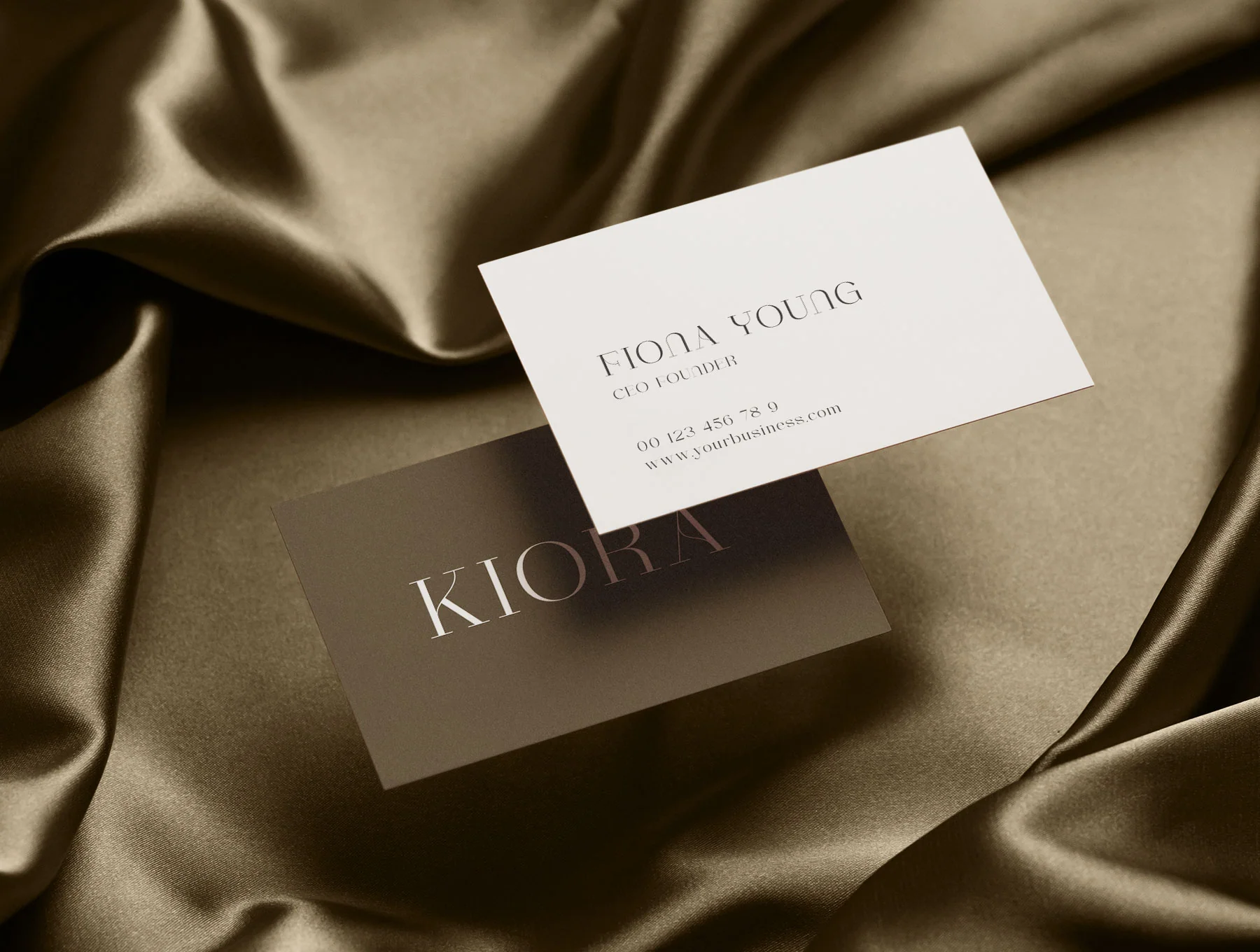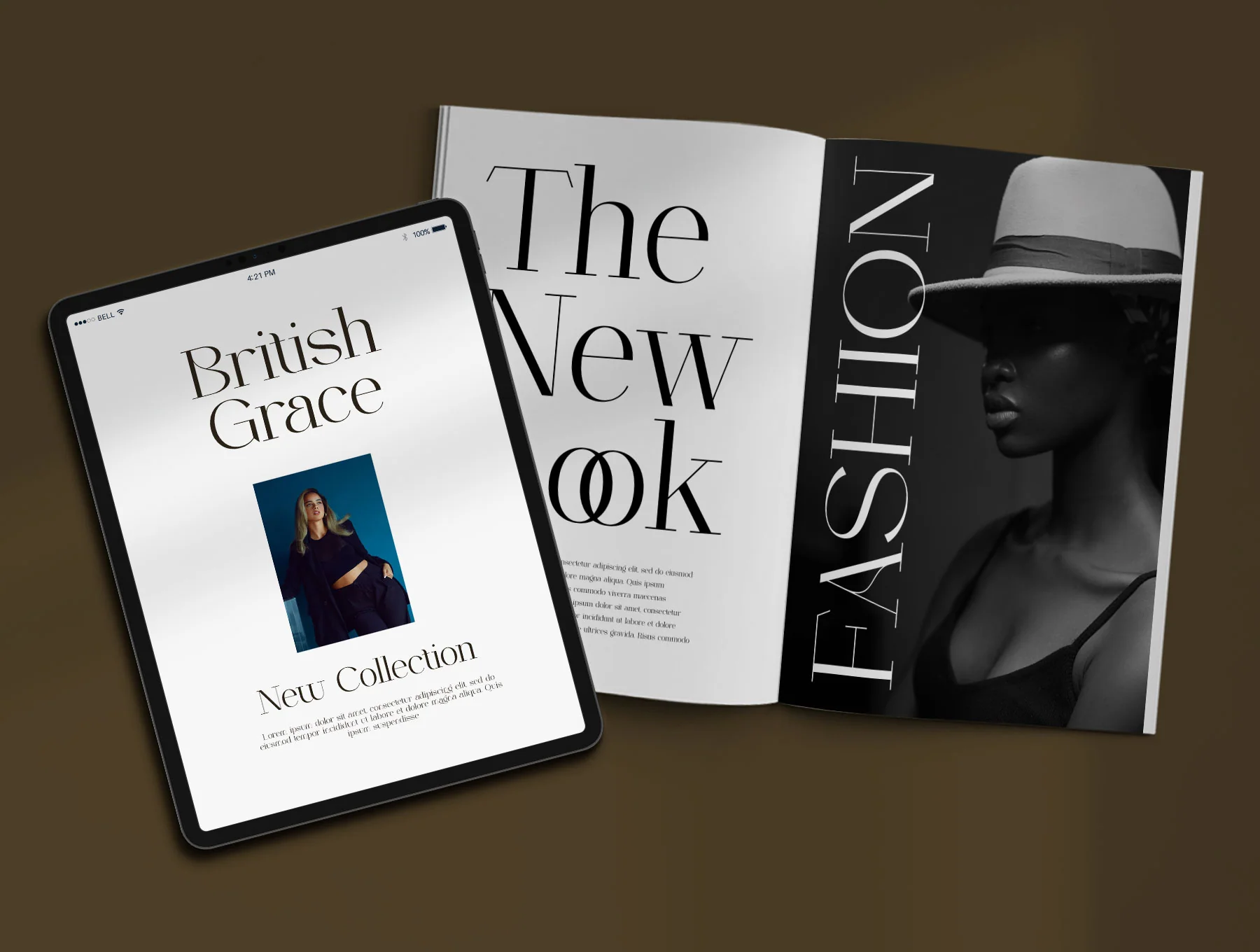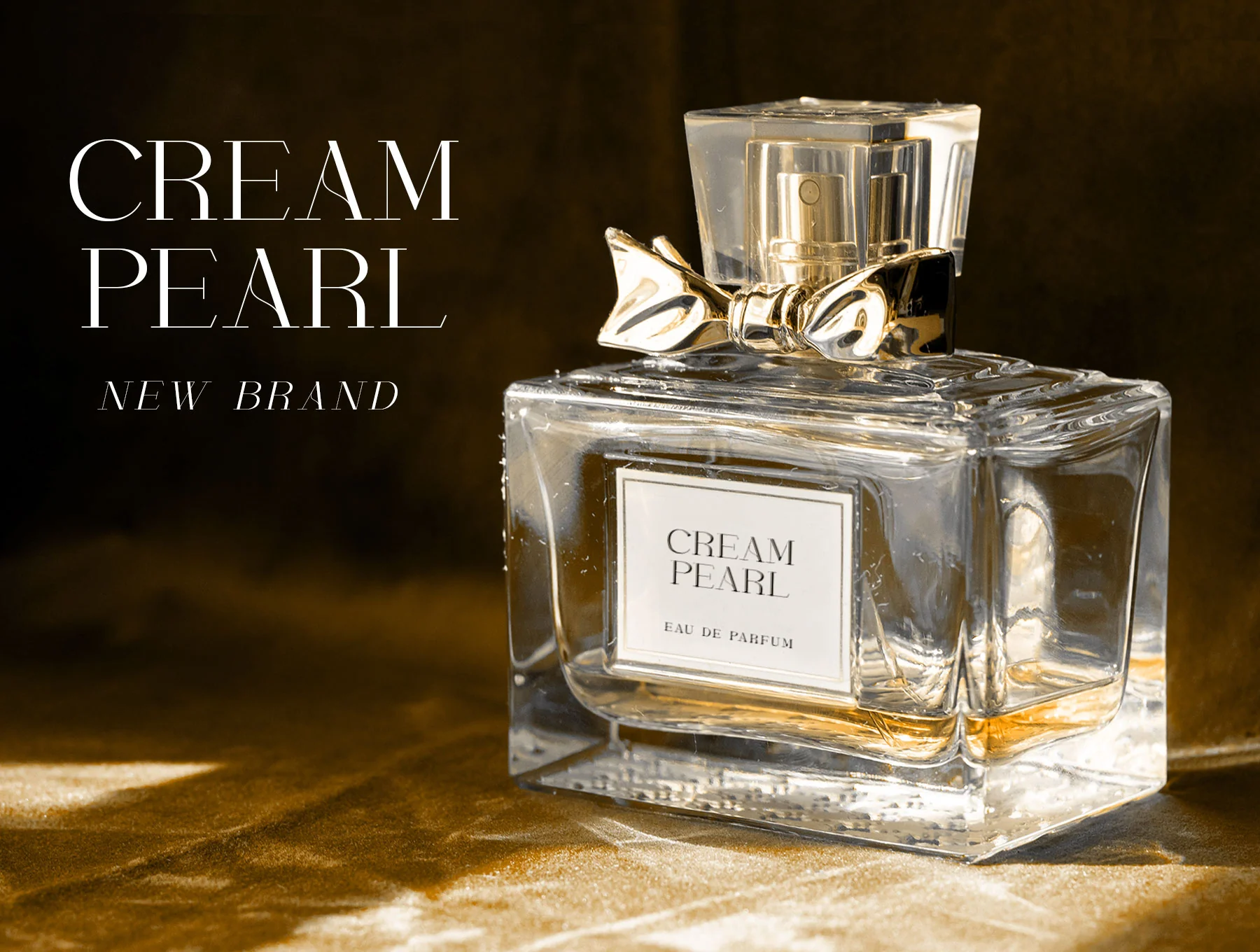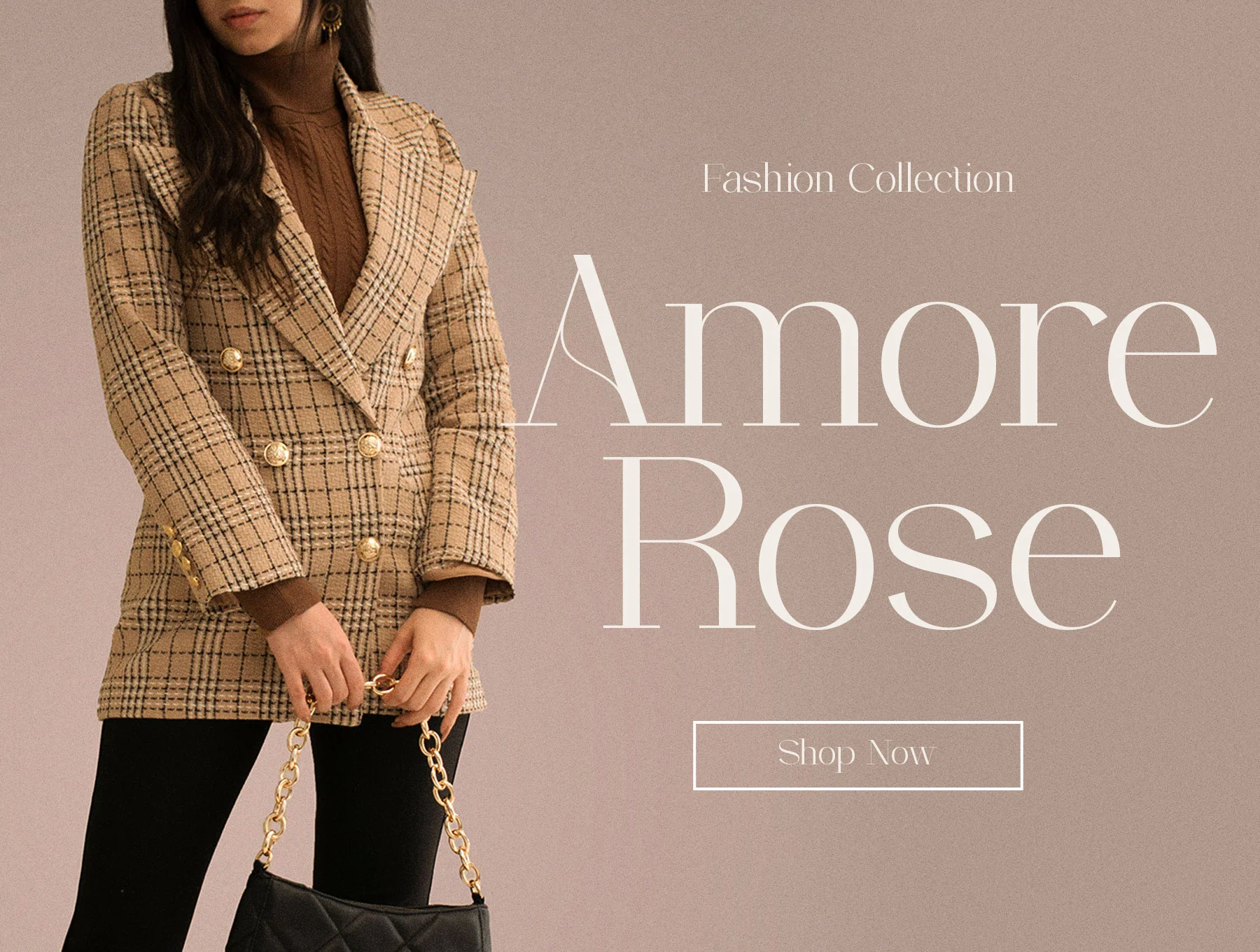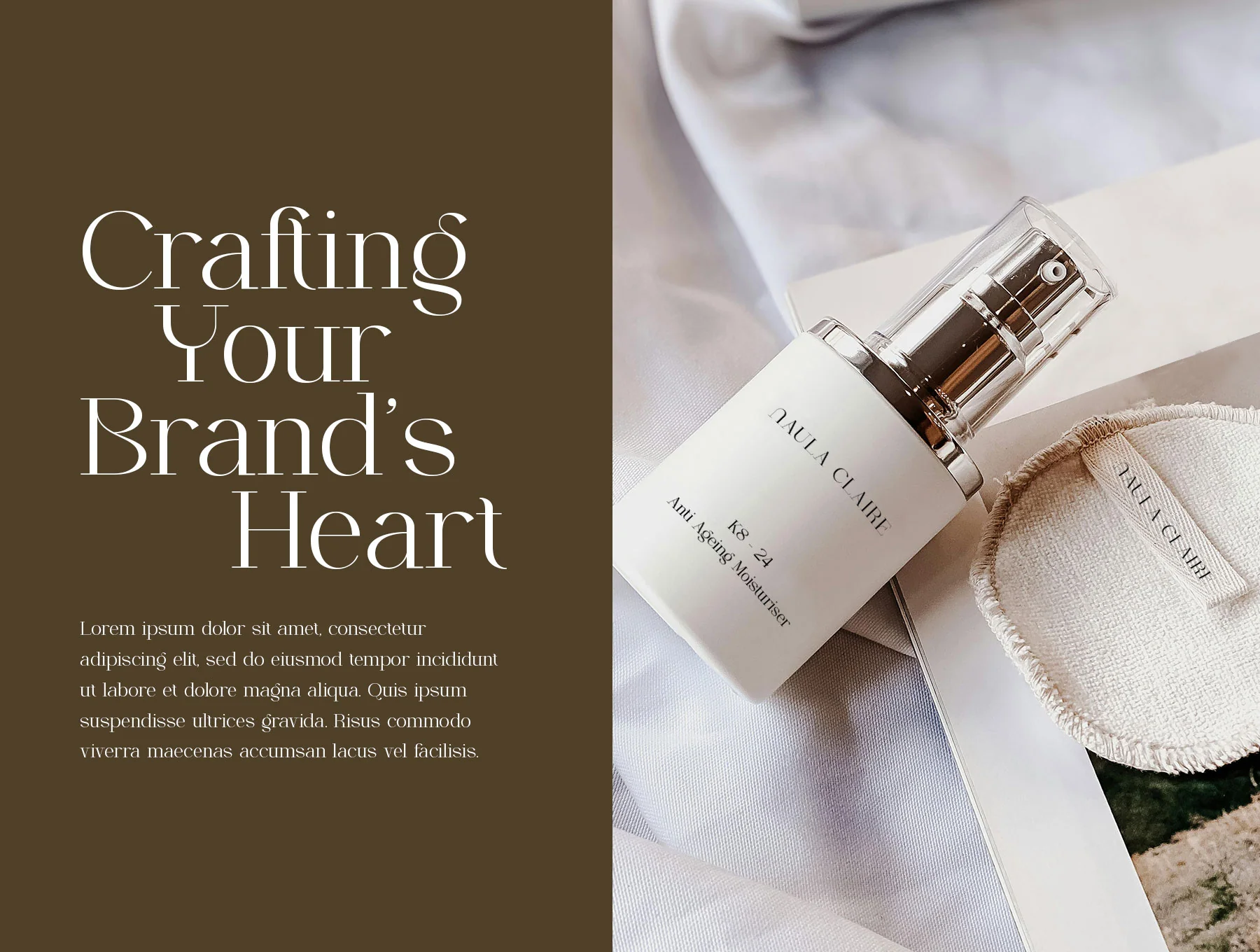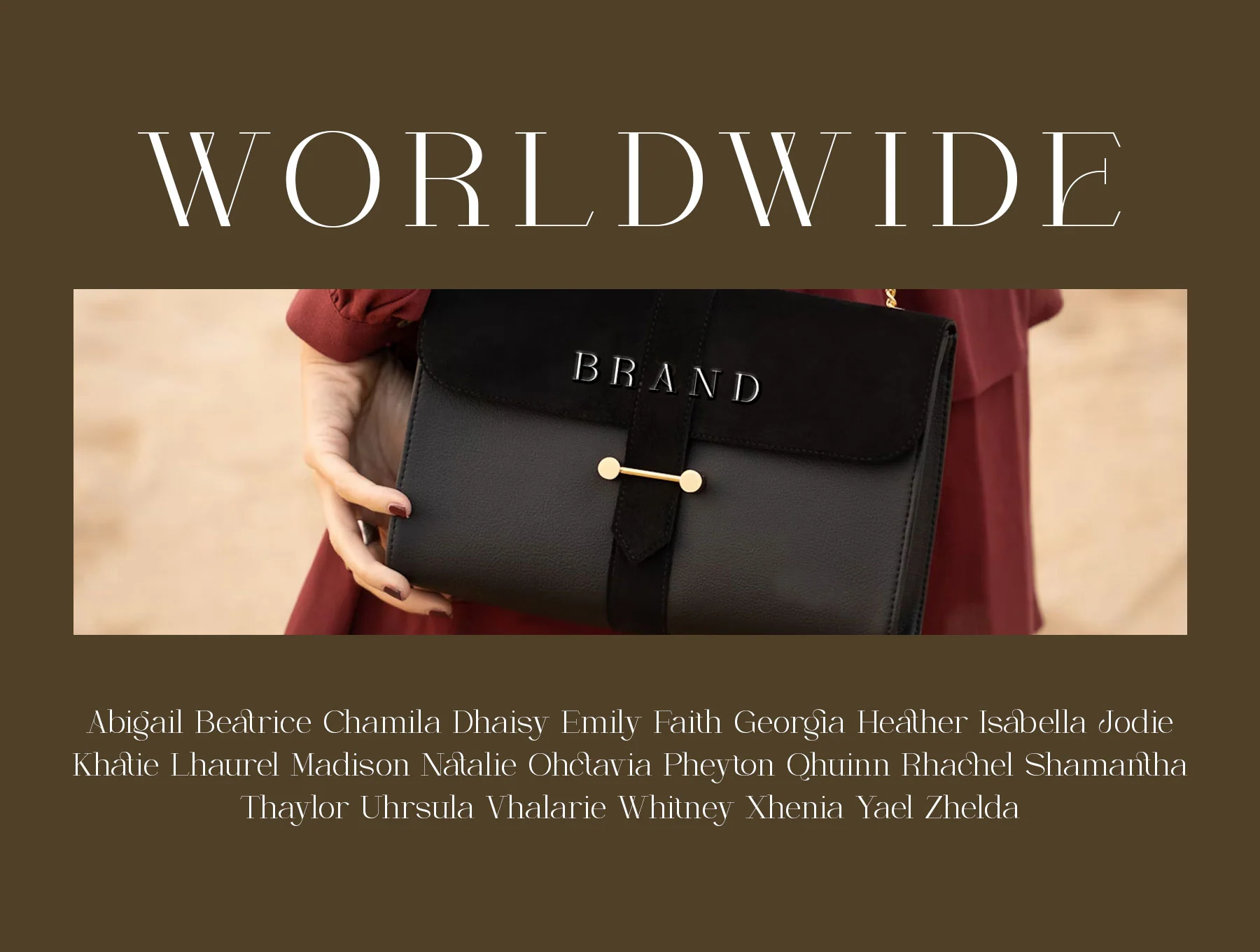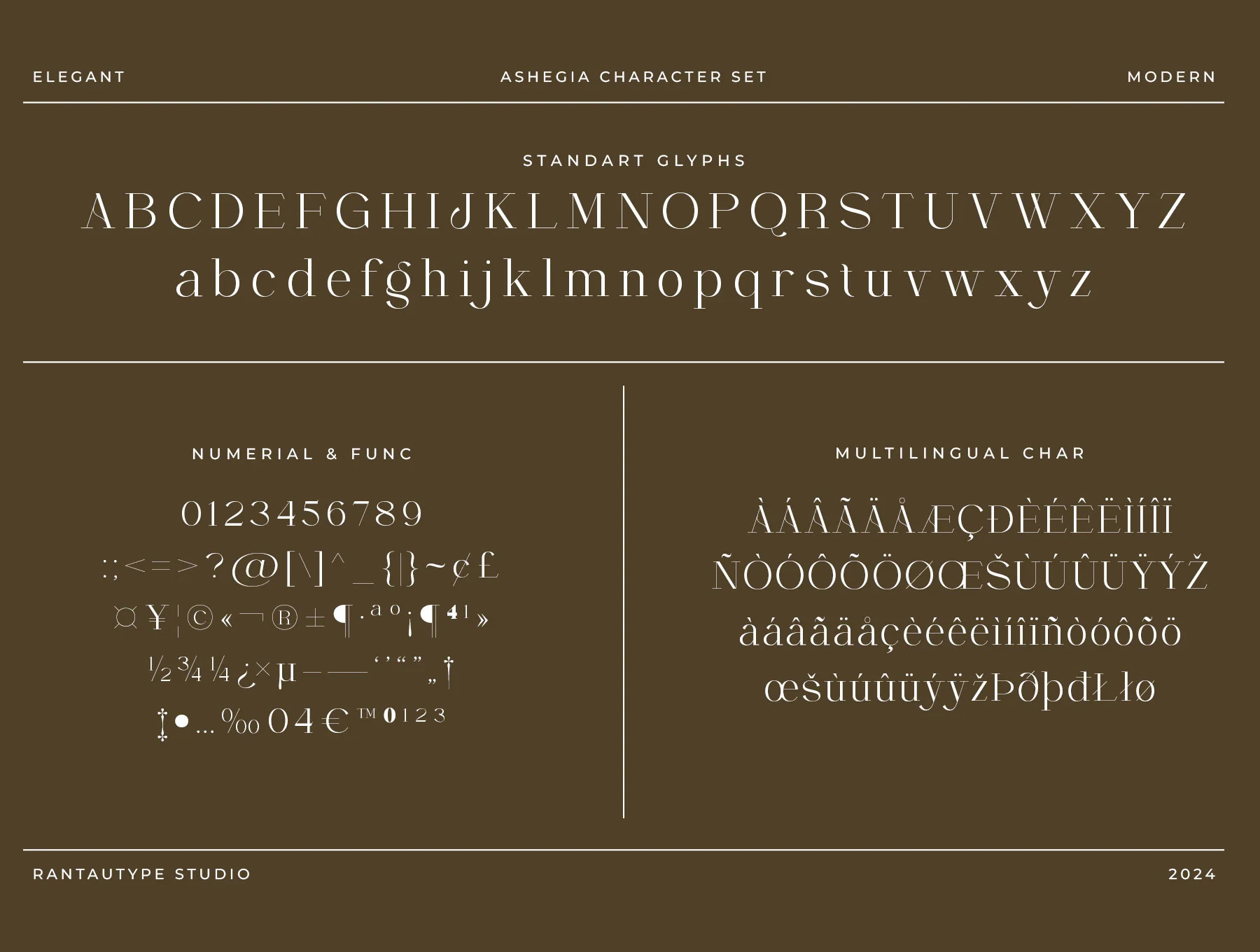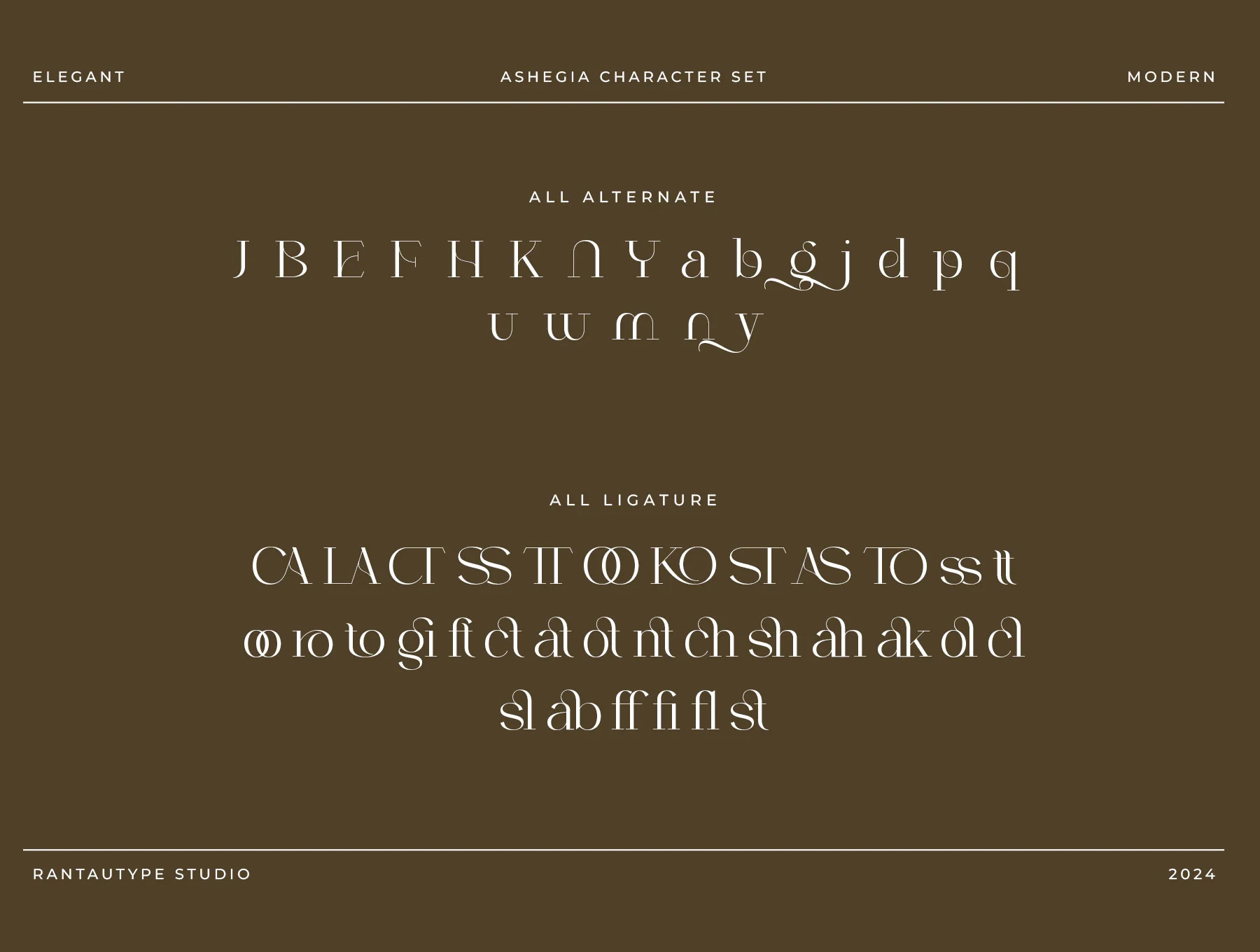
Ashegia Modern Serif Font
Ashegia Contemporary Serif Typeface
Standard character set
Numerals and practical symbols
Stylistic alternatives and joined glyphs
Ashegia is a fashion-led modern serif with slim, graceful forms for chic branding, logos, titles, covers, invitations, magazines, packaging, labels, ads, quotes, social media, photography and events. Includes regular and italic in OTF, TTF and WOFF, glyphs, numbers, alternates, ligatures, multilingual characters, PC/Mac support and easy use in Adobe apps or Word.